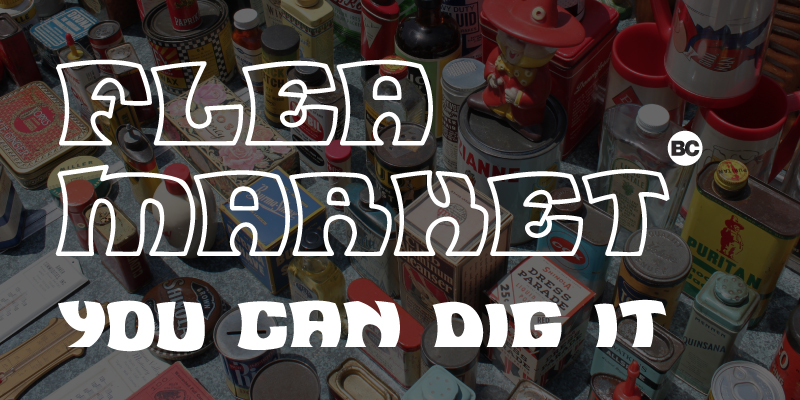
Preview and download Flea Market Font. Created by BC in Fancy Groovy styles with Free for personal use license.
Flea Market By BC - VNBC http://www.vnbc.fr This groovy font inspired by 60's roundness is perfect for your events announcements with its eye-catching boldness. It comes in two styles: - Plain - Outline This font version is uppercase only and comes free for personal use. If you want to use it in commercial purpose please purchase a license here: http://www.revolge.com/product/flea-market-font/ Or contact me on bc(at)vnbc.fr Flea Market Plain & Outline - Copyright (c) 2013 by BC. All rights reserved. |